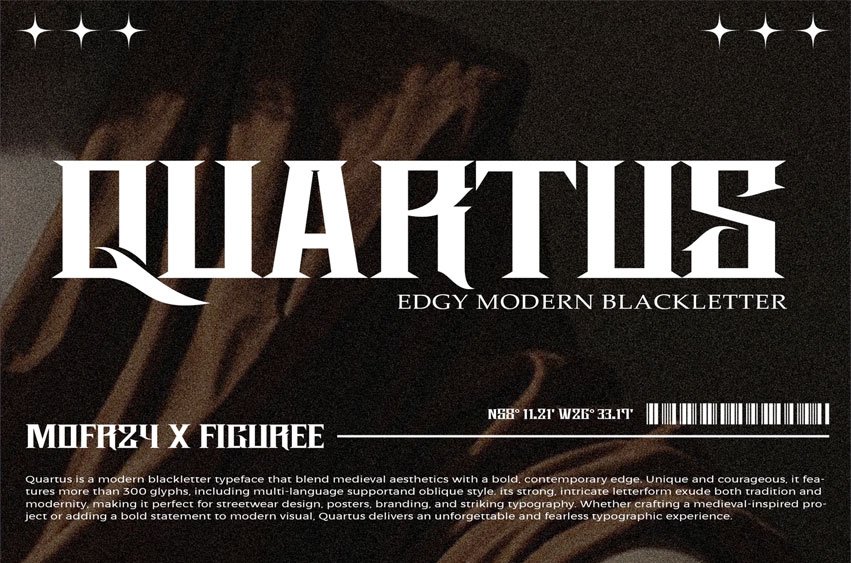
Quartus Font Edgy Modern Blackletter, a daring fusion of Gothic elegance and sharp modern aesthetics. Designed for bold creatives, Quartus brings a rebellious soul to traditional blackletter. Each glyph is crafted with attitude — sharp serifs, dramatic contrast, and angular precision that demand attention on every design.
Quartus comes in two striking styles: Regular and Oblique, perfect for building tension and dynamic visual rhythm in your compositions. The complete character set includes Uppercase and Lowercase letters, making it ideal for logos, branding, posters, tattoo-inspired graphics, music album covers, editorial layouts, and creative displays.
Whether you’re crafting a heavy metal band identity or an avant-garde visual piece, Quartus delivers the intensity and edge your typography deserves.
Let your message cut through the noise with Quartus — a modern blackletter with bite
With Quartus, you’re not just choosing a typeface — you’re setting a tone. This font is a statement, a vibe, and a weapon in your design arsenal. Push boundaries, embrace contrast, and let your creativity roar with Quartus. Ready to make your mark?